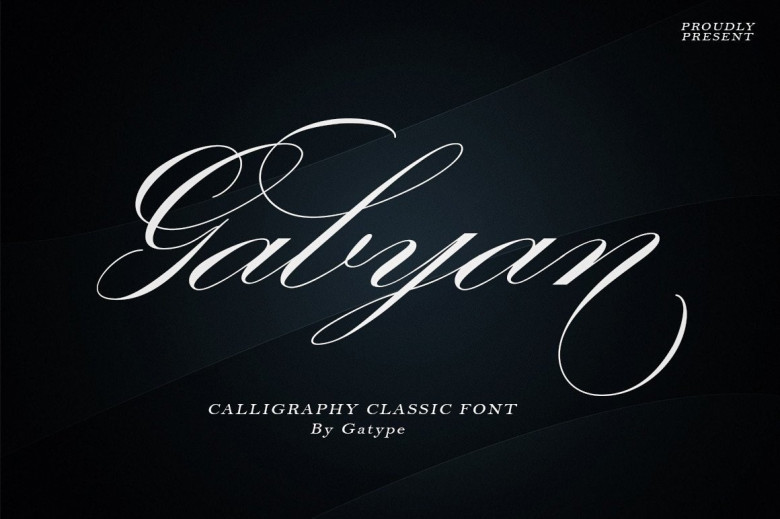
Gabyan Font
Gabyan is an elegant calligraphy script font designed for use in calligraphy applications, logos and packaging wedding invitations branding and headlines, signatures labels signatures book covers posters quotes etc.
Gabyan Calligraphy Script Font